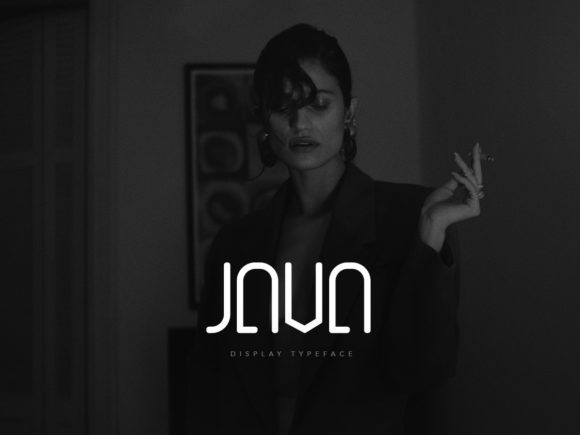
In a realm of digital artistry, Java Font emerges as a masterpiece, a symphony of visual elegance and futuristic charm. Crafted by the visionary minds at BeeType, Java Font is more than just a collection of characters; it's an invitation to embark on a journey into the future of typography.
Imagine the allure of a font that dances across your screen, captivating beholders with its geometric precision and captivating rhythms. Java Font is the perfect companion for the modern artist, the visionary entrepreneur, and the creative soul seeking a touch of the avant-garde.
With its clean lines and striking angles, Java Font exudes a sense of modernity and innovation. It's the ideal choice for web designs that demand attention, business cards that leave a lasting impression, and any project where a touch of futuristic flair is desired.
Let your imagination soar as you explore the limitless possibilities of Java Font. Experiment with its unique glyphs to craft headlines that capture the eye and subheadings that whisper elegance. With Java Font as your ally, you'll elevate your designs to new heights, leaving a trail of awe-inspiring creations in your wake.
Embrace the power of Java Font today and unlock a world of typographic wonders. Its versatility and captivating aesthetics will ignite your creativity and transform your designs into masterpieces that resonate with your audience.